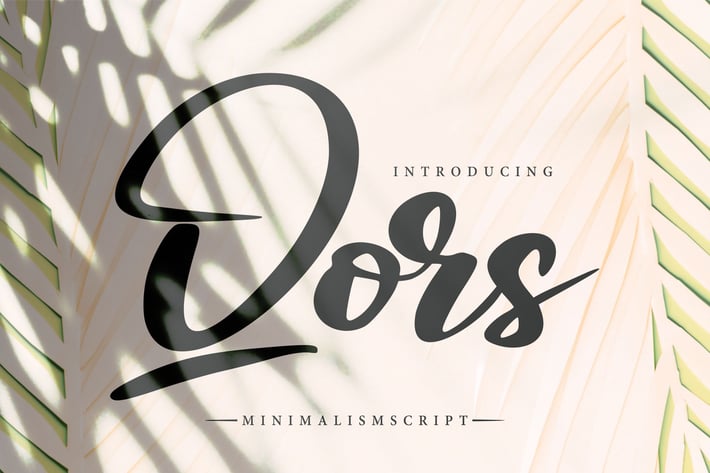
Qors | Minimalism Script Font
Qors | Minimalism Script Font with a calligraphy style, So beautiful on invitation like greeting cards, branding materials, business cards, quotes, posters, and more!